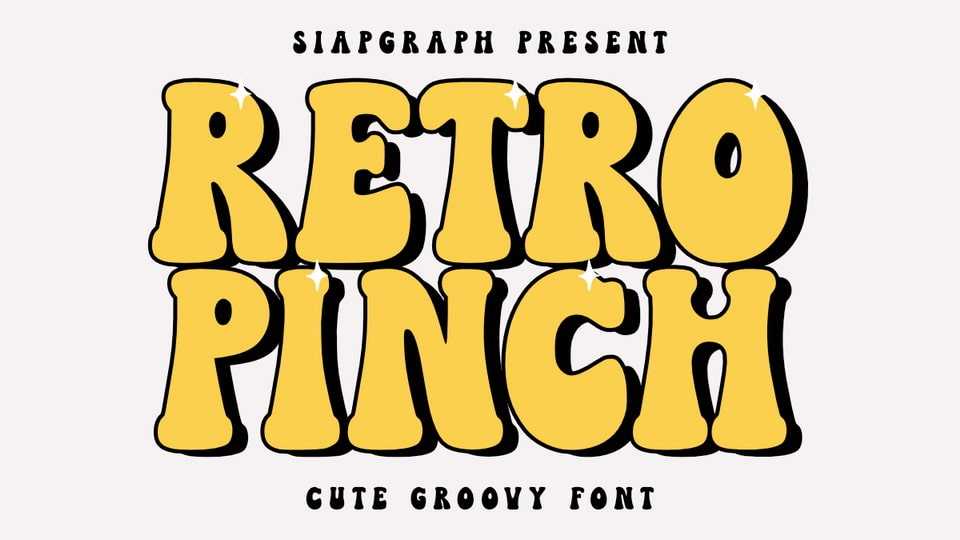
Download Retro Pinch font, a stylistically charismatic, retro-inspired typeface makes an unbeatable selection for everything from vintage illustrations to contemporary boho creations.
Designer: SiapGraph